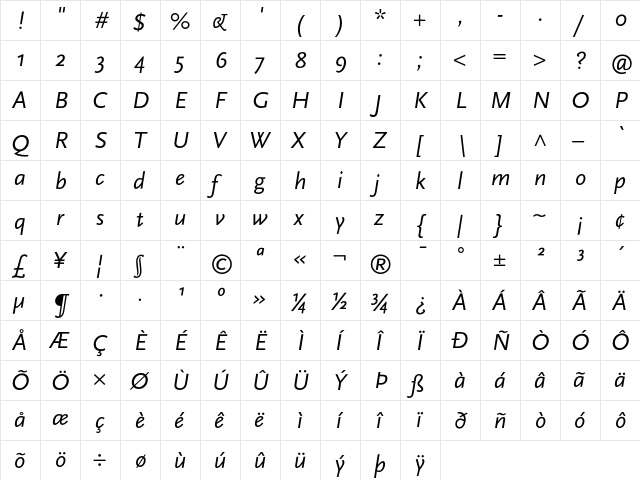
Scala Sans Regular Italic
Scala Sans takes a measured approach to typography — its balanced proportions and neutral character make it a reliable workhorse for both digital and print work. Its italic angle brings a sense of urgency and motion to the letterforms.
Pro Tip: Try Scala Sans for annotation and caption copy alongside an upright companion — the contrast in angle creates a dynamic but ordered typographic system.